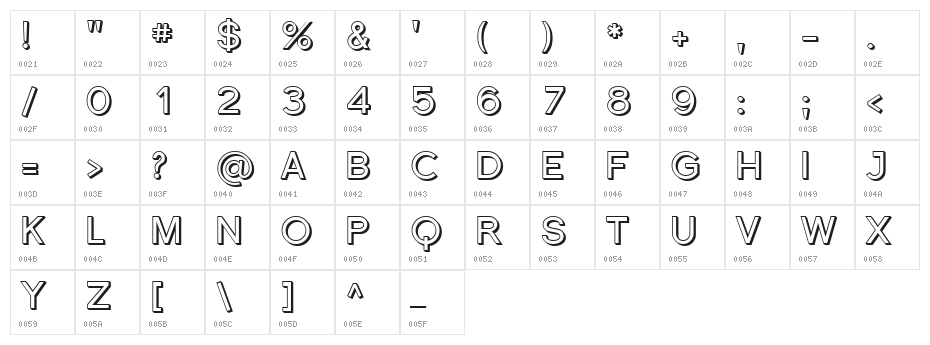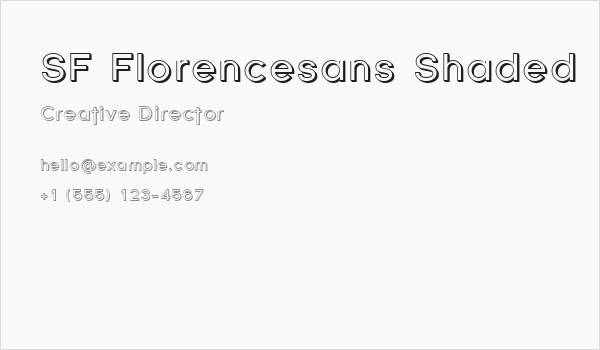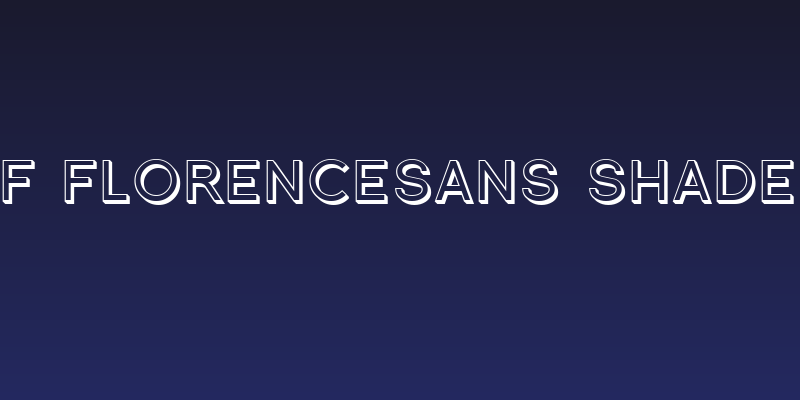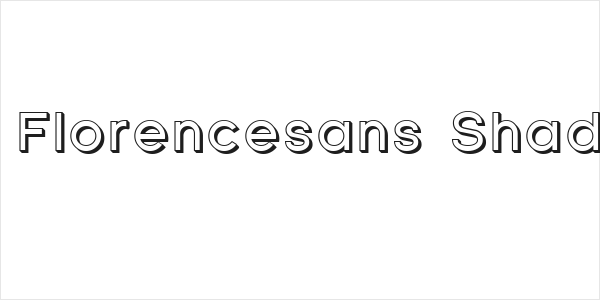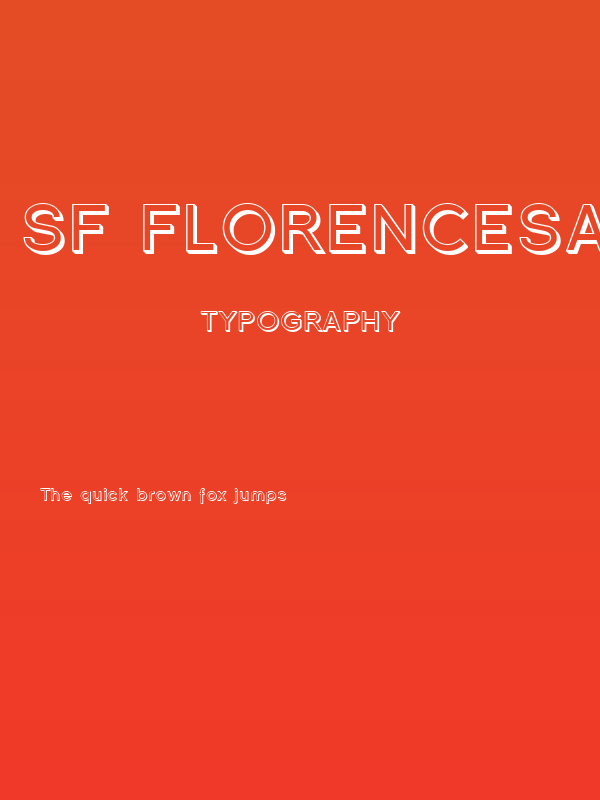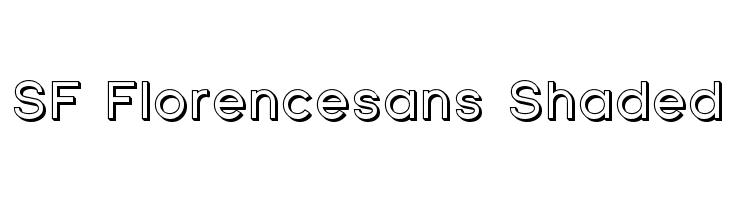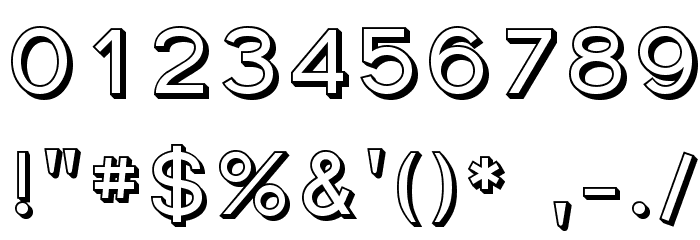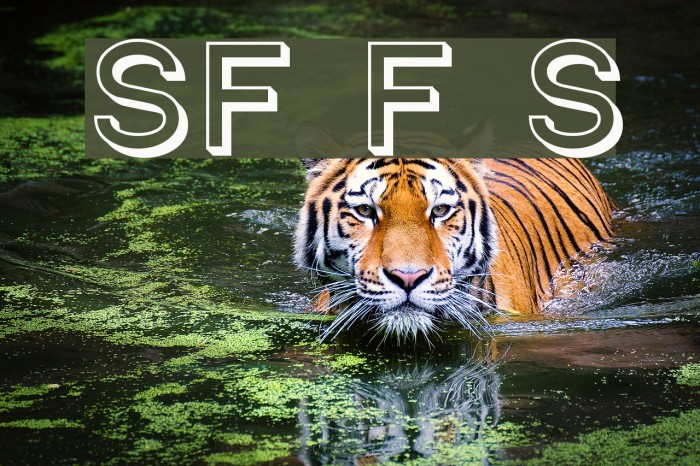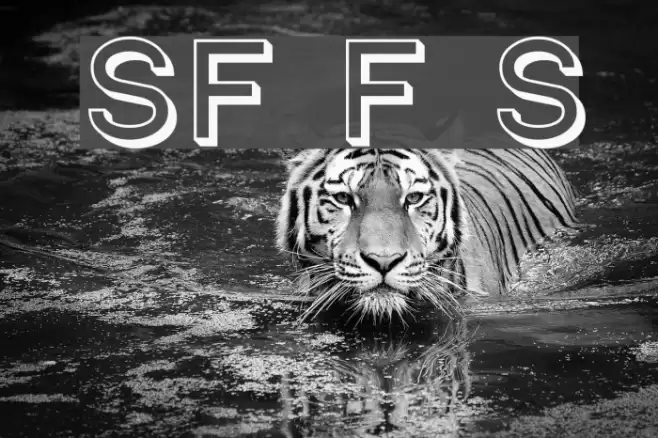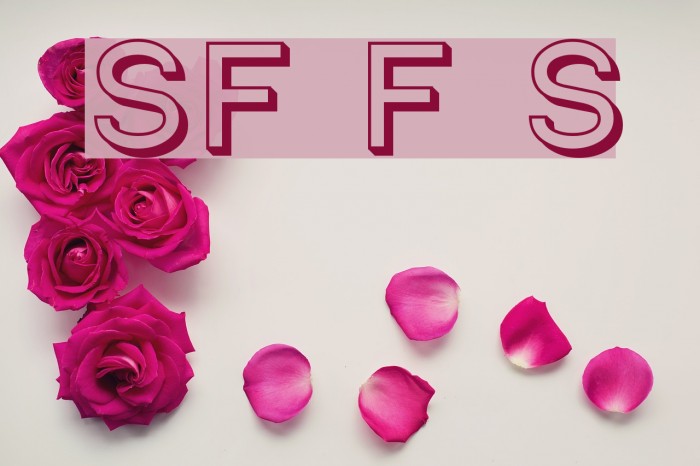
SF Florencesans Shaded Font
SF Florencesans Shaded Description
This font features a bold, sans-serif style with a distinctive shaded effect that gives each character a three-dimensional appearance. The letters are well-defined with clean lines and a modern aesthetic. The uppercase and lowercase letters maintain a consistent design, ensuring readability and visual appeal. The numerals and special characters are equally well-crafted, making this font versatile for various applications. Its unique shading adds depth and interest, making it suitable for eye-catching designs.
| Proposed Projects | Ideal for branding, posters, headlines, and any design requiring a modern and striking appearance. |